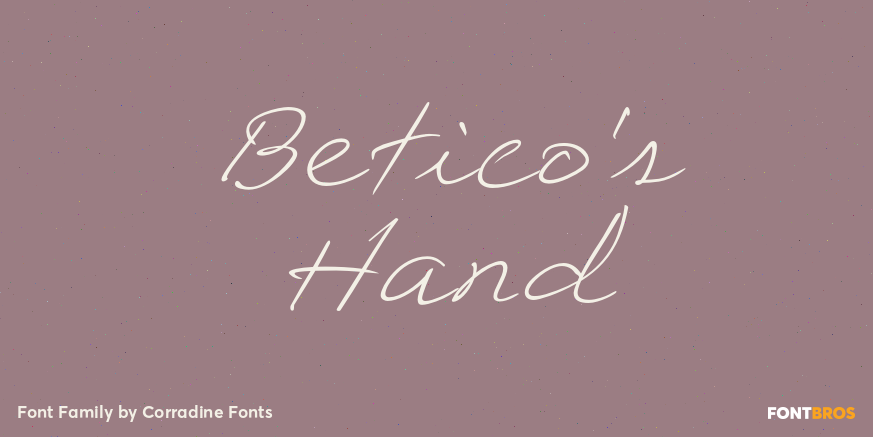
HomeFont BrosHandwrittenBetico's Hand HandwrittenScripts: Casual Betico\’s Hand FacebookXPinterestWhatsApp 1 of 1 About Betico\’s Hand Based in Elberto Roman\’s handwriting. It could be used even in a formal project.  DOWNLOAD ON FONT BROSThis font is sold and delivered by Font Bros. Font Canyon may earn a commission if you buy through this link. People also explored Winter Font Tibson Script Font Arunika Font Amélie Camille Font Smart Brush Font Amour Script Font Brush Poster Grotesk Extras Font Colbey Thin Font Rushtice Font 223 0 TagsBetico\'s Hand Font Previous articleFiduciaNext articleRachele LEAVE A REPLY Cancel reply Comment: Please enter your comment! Name:* Please enter your name here Email:* You have entered an incorrect email address! Please enter your email address here Website: Save my name, email, and website in this browser for the next time I comment. Personal Use Free Orchid Personal Use Free Read more about this font Styledeep Personal Use Free Read more about this font Zero Panzer Personal Use Free Read more about this font BD Spinner Personal Use Free Read more about this font BLOG Where to Buy American Fonts Online in 2024 Where to Buy American Fonts Online: The Ultimate Guide for 2024 Looking for the perfect American font to elevate your design projects? You're in the... Fonts That Capture the Spirit of New York City To increase your work productivity, choose the most readable fonts. Best Fonts for YouTube Videos: Make Your Thumbnails Stand Out